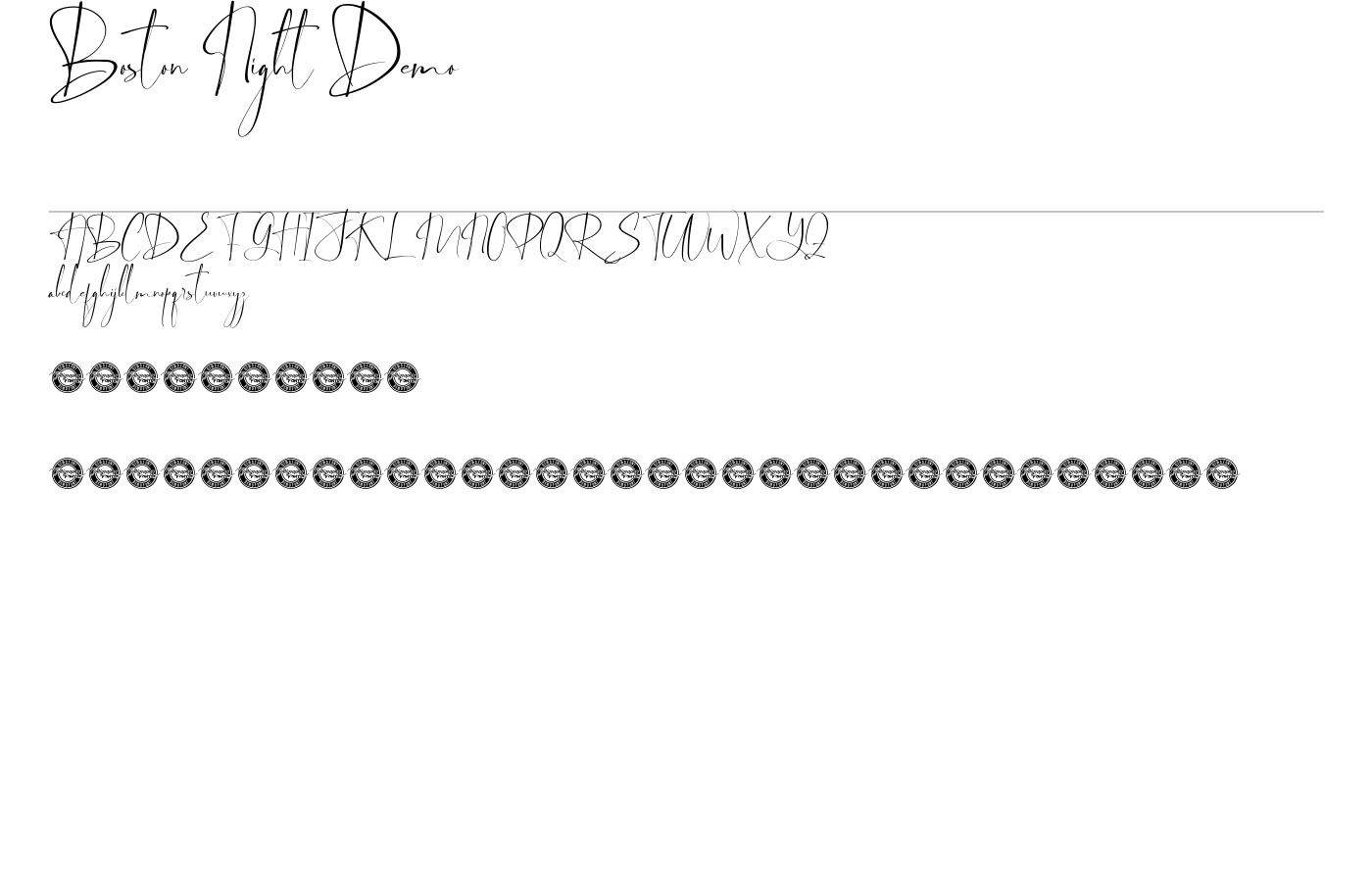
Boston Night Demo is a delicate, elegant script font featuring slender, flowing letterforms with high contrast and a hand-drawn feel. Its tall, graceful strokes and refined curves make it perfect for luxury branding, wedding invitations, and sophisticated editorial designs where a touch of modern femininity is desired. This font shines in expressive headlines and decorative text, adding a stylish and personal flair.
Boston Night Demo Font
About Boston Night Demo Font